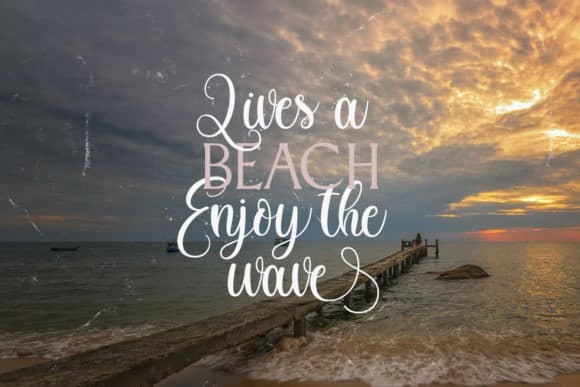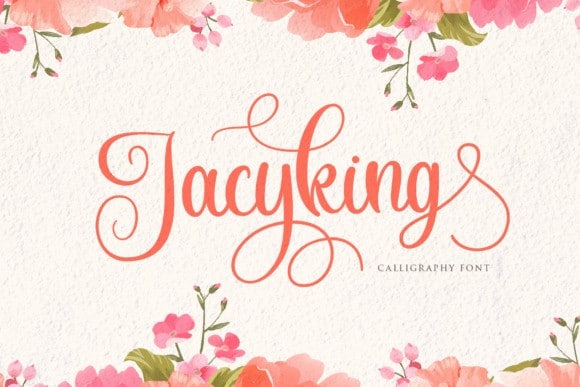
Jacyking Calligraphy Font is a natural handwritten font. Made by writing on paper first and then scanning. Made from font designer named StringLabs. This font is an exquisite handwritten font, masterfully designed to become a true favorite. It maintains its classy calligraphic influences while feeling contemporary and fresh. Fall in love with it and bring your projects to the highest levels!
This font is PUA encoded which means you can access all of the glyphs and swashes with ease! It features a varying baseline, smooth lines, gorgeous glyphs and stunning alternates.